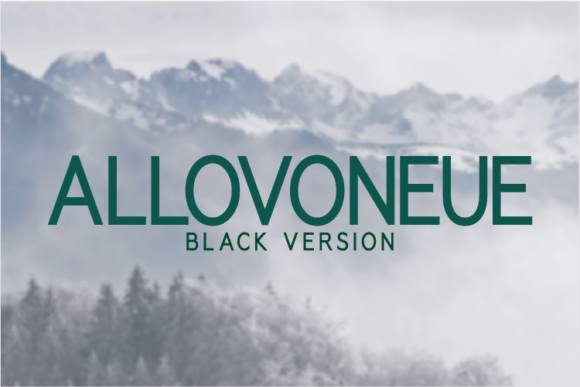
The Perfect Blend of Geometry and Style
As a designer, there’s nothing quite like the thrill of stumbling upon a font that perfectly captures the essence of a project. For me, it’s often the moment when the words start flowing, and the design begins to take shape. Recently, I discovered Allovoneue Black Font, a fresh and geometric sans-serif font family that has become an instant favorite.
Allovoneue Black Font is designed to be versatile and adaptable, making it an excellent choice for a wide range of applications, from magazine layouts to branding and posters. Its geometrical letterforms and sharp edges give it a unique, modern feel that’s sure to grab attention. With its very small stroke contrast, Allovoneue Black Font is the perfect blend of style and functionality, making it a valuable addition to any designer’s toolkit.
Allovoneue Black Font Key Features
- Font Family: Allovoneue Black Font is a unique, modern sans-serif font family designed for digital and print applications.
- Character Count: The font family includes over 1000 glyphs, covering a wide range of languages, including Latin, Cyrillic, and Greek alphabets.
- Unique Characteristics: Allovoneue Black Font features a distinctive, bold, and geometric design aesthetic, making it perfect for modern and minimalist designs.
Allovoneue Black Font Review
Overall, I think Allovoneue Black Font is a solid choice for designers looking for a bold and elegant sans-serif font. Here are some of its strengths:
- ✨ The font is highly legible, even at small sizes, making it perfect for body text and headings.
- ✨ Allovoneue Black Font has a sleek and modern aesthetic that works well for a variety of design projects, from digital interfaces to print materials.
- ✨ The font is highly customizable, allowing designers to fine-tune the spacing, weight, and other aspects to suit their needs.
- ⚠️ The font may not be suitable for projects that require a more traditional or classic feel, as its modern design may come across as too trendy.
- ⚠️ Some users may find the font’s weight to be a bit too heavy, making it difficult to read at certain sizes or in certain contexts.
- ⚠️ The font’s limited character set may not be suitable for projects that require support for non-Latin scripts or special characters.
Overall, I would give Allovoneue Black Font 4 out of 5 stars. While it has some limitations, its strengths make it a great choice for designers who want a bold and elegant sans-serif font that can handle a variety of design projects.
Allovoneue Black Font is ideal for:
- Creatives and designers looking for a sleek, modern font
- Brands and businesses seeking to establish a strong visual identity
- Graphic designers and digital artists
To get the most out of Allovoneue Black Font, try:
- Pairing it with bold, bright colors for maximum contrast
- Using it in combination with other fonts for a unique look
What is the recommended font size for optimal readability with Allovoneue Black Font?
The recommended font size for optimal readability with Allovoneue Black Font is between 10pt and 14pt, depending on the intended use and viewing distance. For body text, 12pt is a good starting point, while headings can be larger (14pt or 16pt) for emphasis.